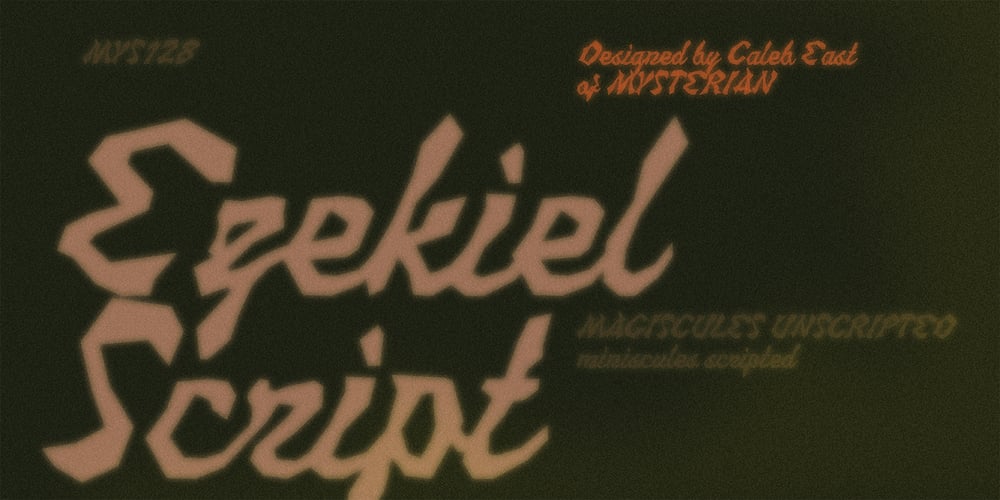
Ezekiel Font Family was designed by Caleb East and published by MYSTERIAN. Ezekiel contains 1 styles and family package options. Ezekiel Script is the font become flesh—mythic gesture imposed upon forms of mechanical medium. Typography has changed the internet; our phasing mimetic desires tend toward posture rather than rationale, and the face is a concept that explores that concept. Obviously some reading of McLuhan has infliunced this concept of analysis. The script has ample diacritic extensions, as well as an alternative for the ampersand (characteristic of MYSTERIAN type) and the eszette: an upper and lower case. The upper and lower case alphabets are diverse in that the majuscules do not have linking strokes while the miniscules do. This was the first script that I’ve made, and great attentiveness was taken to ensure that links were set accurately, and spacing harmonious throughout.